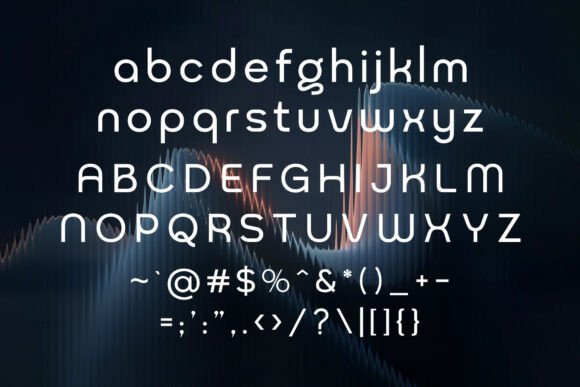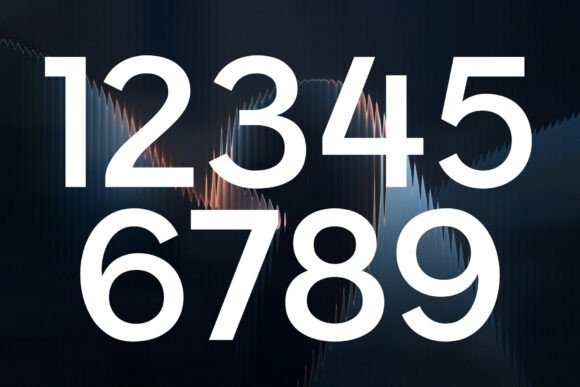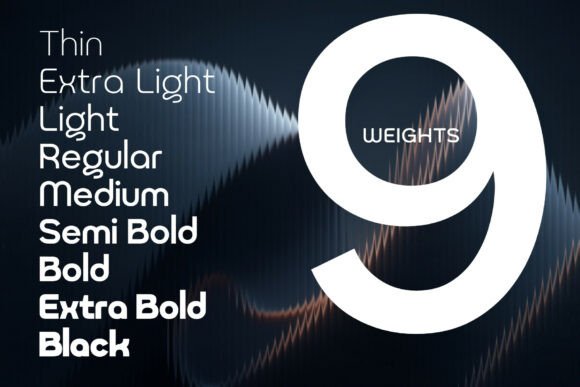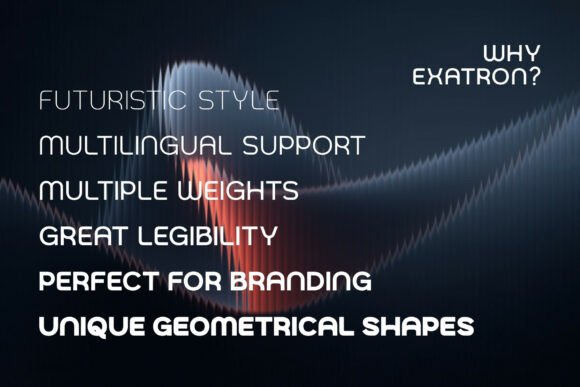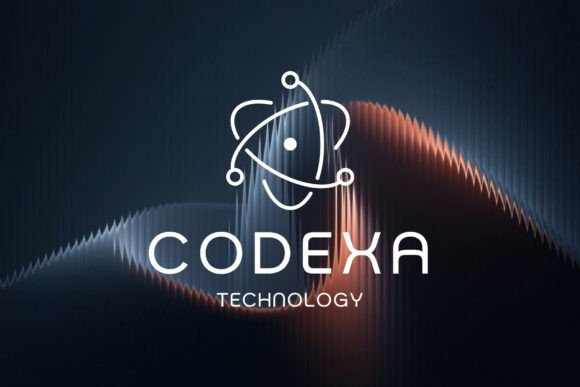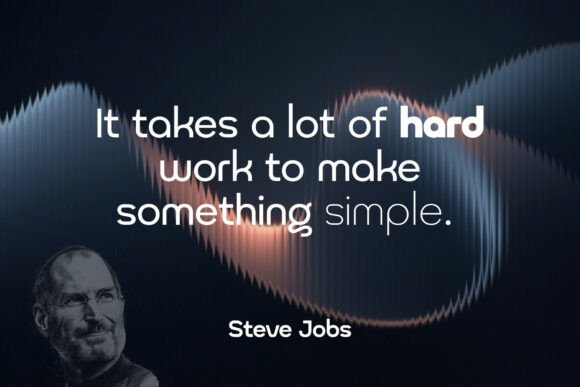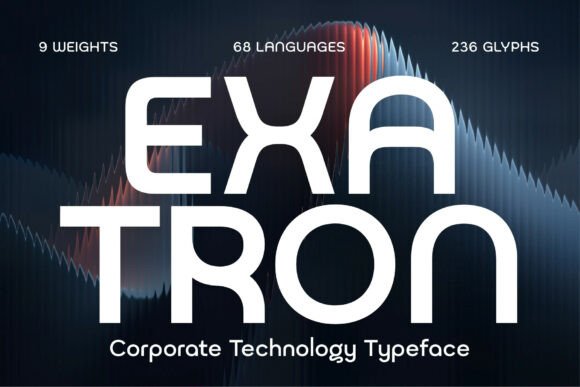
Introducing Exatron Font: The Future of Professional Design
In today’s fast-paced, digitally driven world, a strong visual identity is crucial for businesses to stand out and make a lasting impression. A well-crafted typeface can be a game-changer, conveying a brand’s values, personality, and message with clarity and confidence. This is where Exatron Font comes in – a sleek, corporate technology typeface engineered with precision and clarity to help modern businesses communicate their vision and values with authority.
The Design Philosophy Behind Exatron
Exatron’s design is rooted in a deep understanding of the needs of modern businesses. Its creators aimed to craft a typeface that blends clean geometry with contemporary minimalism, resulting in a powerful visual voice that exudes innovation, stability, and forward-thinking. The font’s balanced structure and refined letterforms are designed to communicate a sense of sophistication and professionalism, making it an ideal choice for brands that want to project a smart, confident, and future-ready image.
Key Features of Exatron Font
- Clean Geometry: Exatron’s design is characterized by clean lines, precise curves, and a geometric approach that ensures clarity and legibility across various mediums.
- Contemporary Minimalism: The font’s minimalist aesthetic ensures that it remains versatile and adaptable, allowing it to seamlessly integrate with various design contexts.
- Balanced Structure: Exatron’s balanced structure ensures that it communicates a sense of stability and reliability, making it perfect for brands that want to convey a sense of trust and authority.
- Refined Letterforms: The font’s refined letterforms are designed to be elegant and sophisticated, ensuring that they add a touch of professionalism to any design project.
Versatility Across Print and Digital Environments
Exatron Font is designed to be versatile, adapting seamlessly across both print and digital environments. Whether you’re shaping a tech startup identity, building a corporate website, or designing polished business materials, this typeface ensures consistency and sophistication at every touchpoint. Its professional tone and modern presence empower your brand to speak the language of technology – clearly, confidently, and with authority.
Use Cases for Exatron Font
- Tech Startups: Exatron’s modern and innovative design makes it an ideal choice for tech startups looking to establish a strong brand identity.
- Corporate Websites: The font’s clean and professional design ensures that it communicates a sense of trust and authority, making it perfect for corporate websites.
- Business Materials: Exatron’s versatility and adaptability make it an excellent choice for designing polished business materials, such as brochures, reports, and presentations.
Benefits of Using Exatron Font
- Establish a Strong Brand Identity: Exatron’s unique design helps businesses establish a strong brand identity that communicates their values and personality.
- Enhance Credibility: The font’s professional tone and modern presence enhance a brand’s credibility and authority in their industry.
- Increase Versatility: Exatron’s adaptability across various mediums ensures that businesses can use it consistently across different design projects.
Exatron Font is a powerful tool for designers and crafters looking to create a strong visual identity for modern businesses. Its sleek design, versatility, and professional tone make it an ideal choice for businesses that want to communicate innovation, stability, and forward-thinking. By incorporating Exatron into your design projects, you can help businesses establish a strong brand identity, enhance their credibility, and increase their versatility across various mediums.
With Exatron Font, you can step into the future of professional design and empower your brand to speak the language of technology – clearly, confidently, and with authority.